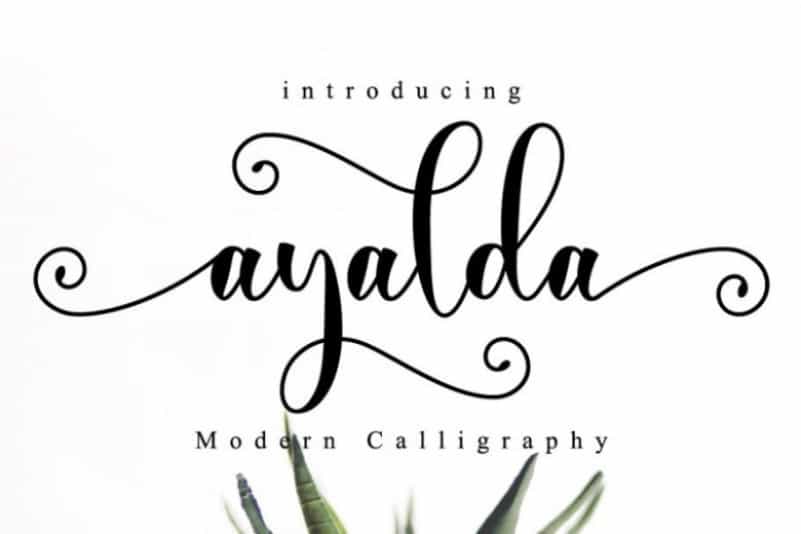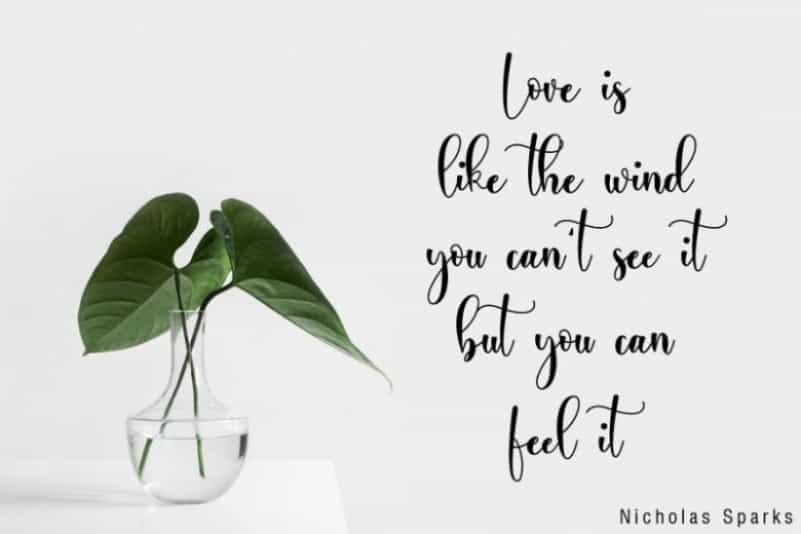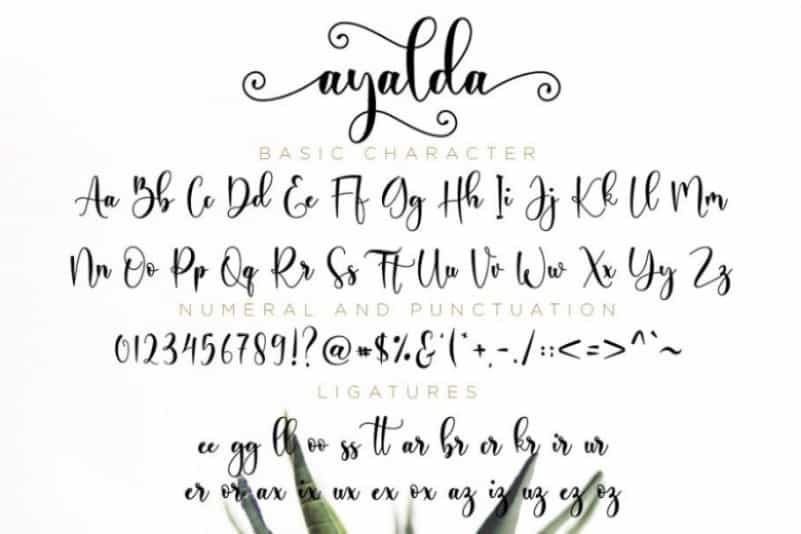
Ayalda is a script font that has the calligraphy style. It is a contemporary calligraphy font. It is a classy and elegant handwritten font with wonderful swashes. You will be definitely amazed by its special look, and you can turn any design idea into a real stunner.